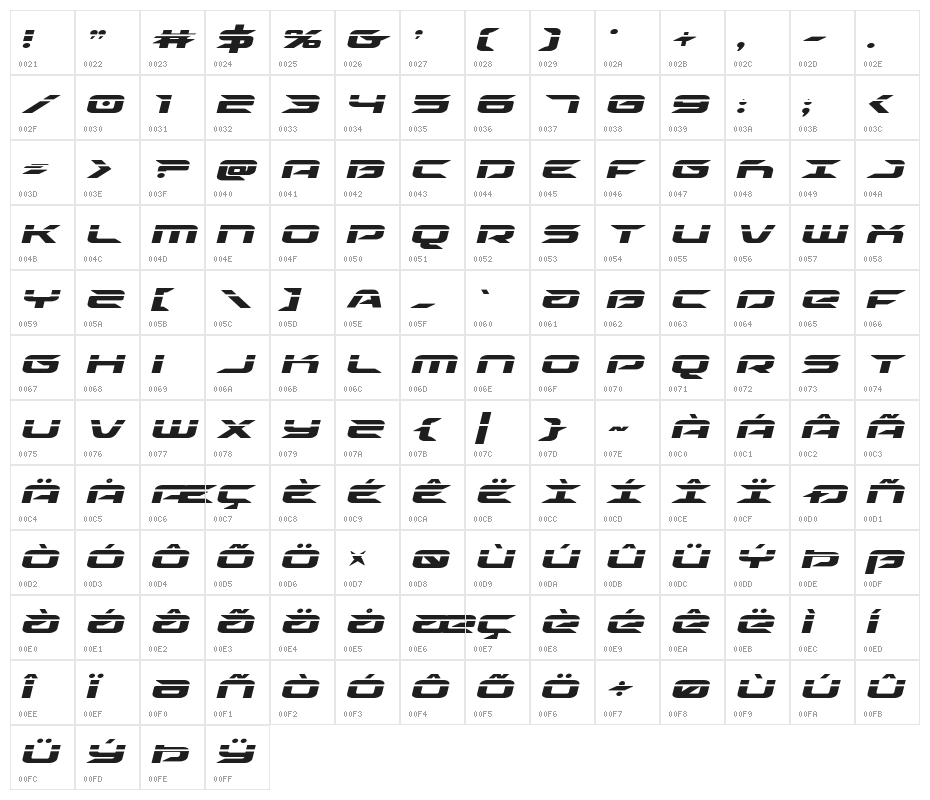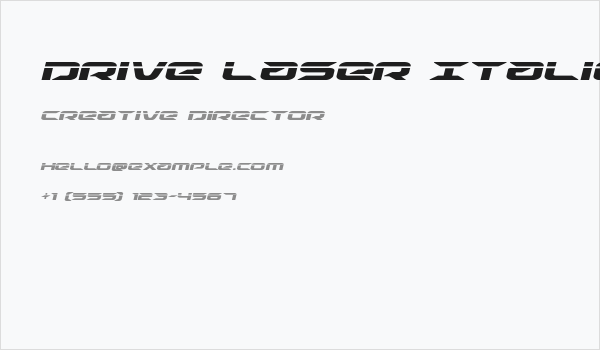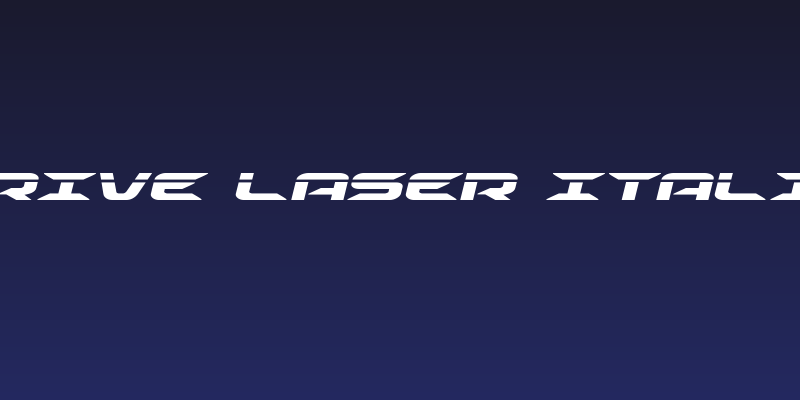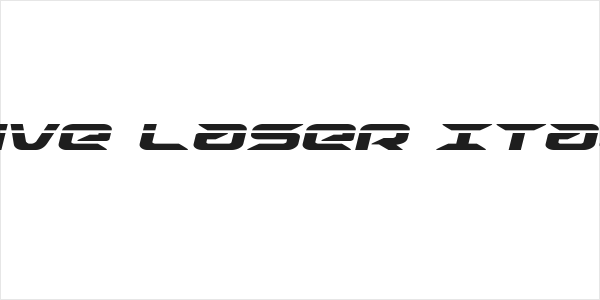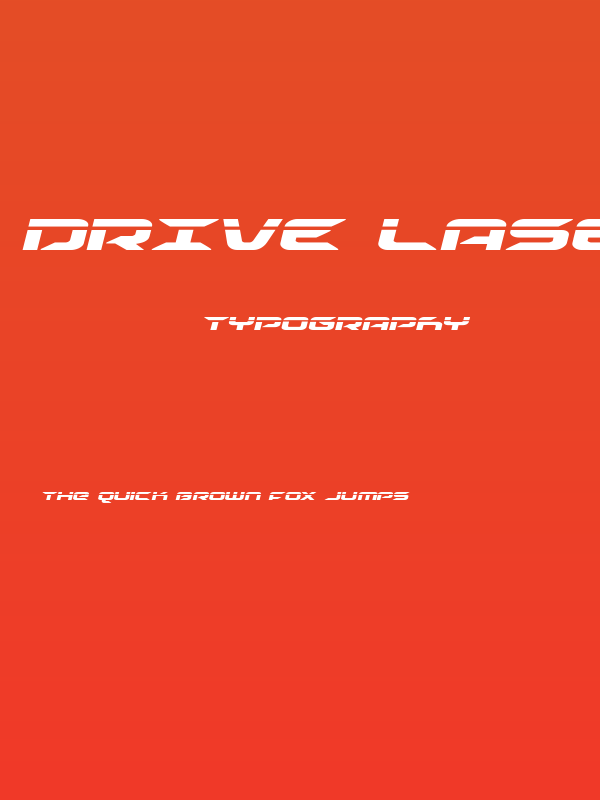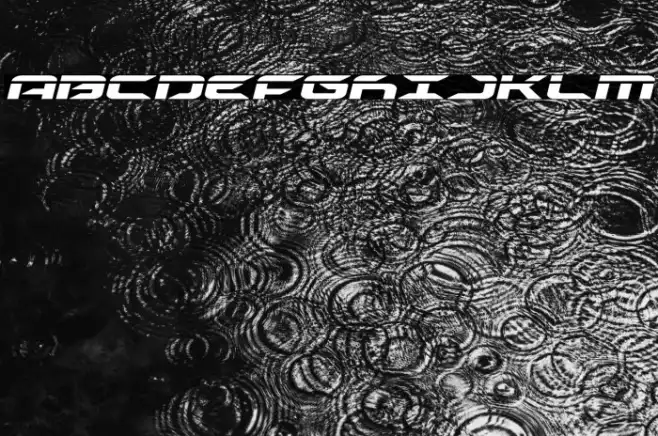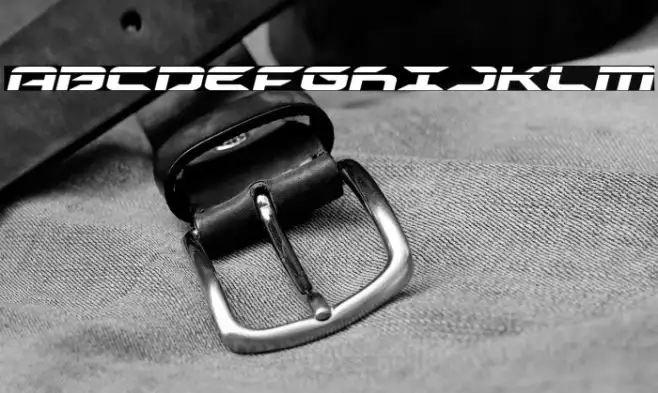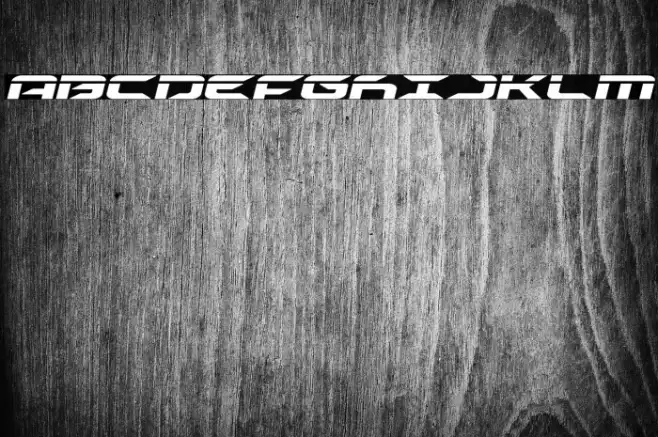
Drive Laser Italic Font
Drive Laser Italic Description
This font features a futuristic and dynamic design, characterized by sharp angles and a sleek, italicized form. The letters are constructed with a distinct geometric style, incorporating slanted lines and cut-out sections that give a sense of movement and speed. The uppercase and lowercase letters maintain a consistent style, with the lowercase slightly smaller but equally bold. Numbers and special characters follow the same design principles, ensuring uniformity across all glyphs. The overall appearance is modern and tech-inspired, making it suitable for projects that require a bold and innovative look.
| Proposed Projects | Ideal for technology branding, video game titles, automotive advertisements, and sci-fi themed designs. |